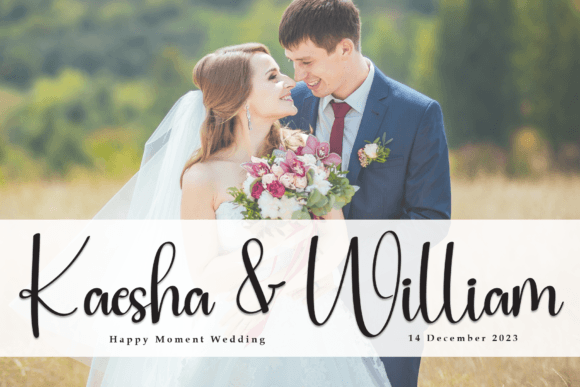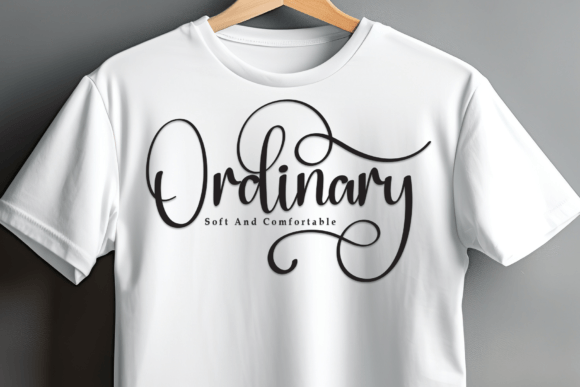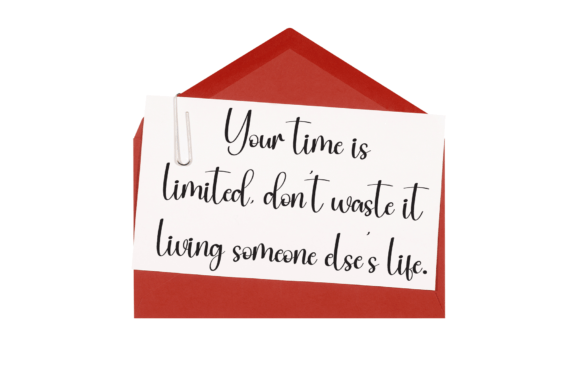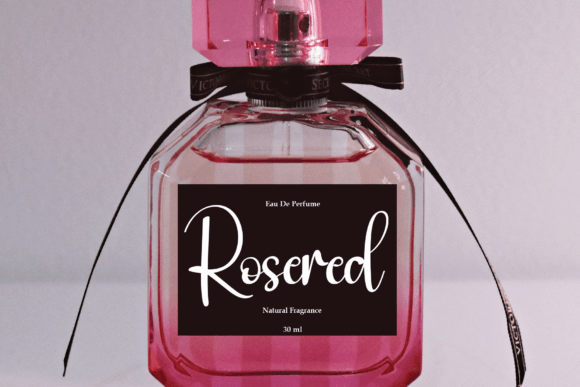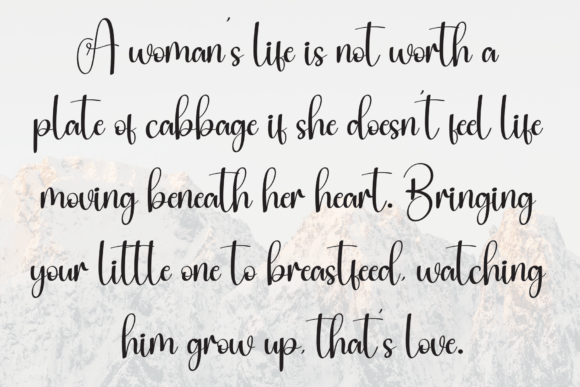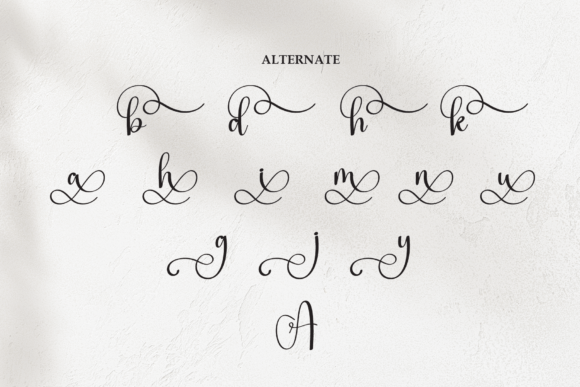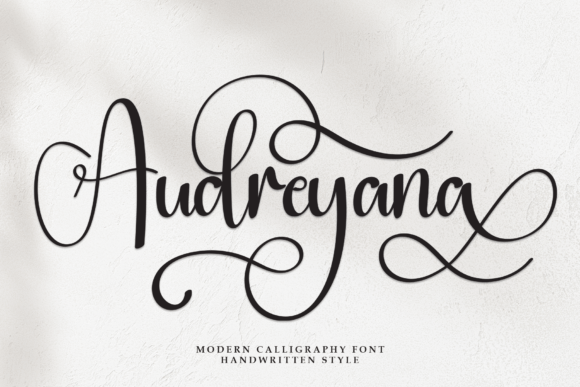
The Audreyana Font: A Sweet and Friendly Companion for Your Design Projects
I’ll never forget the time I was working on a project for a client’s wedding invitation. I had the perfect design concept, but I was struggling to find a font that captured the warmth and elegance of the occasion. That’s when I stumbled upon the Audreyana font. Its gentle curves and soft lines immediately caught my attention, and I knew I had found the perfect fit. In this article, I’ll share my experience with the Audreyana font, its features, and how to make the most of it in your design projects.
A Personal Review of Audreyana
- ✨ The Audreyana font exudes warmth and approachability, making it perfect for heartfelt messages, invitations, and personal touches.
- ✅ Its gentle curves and soft lines create a welcoming tone that’s hard to achieve with other fonts.
- 🎉 The font is highly versatile and can be used for a wide range of design projects, from wedding invitations to social media graphics.
- 👍 The font is easy to read, even at smaller sizes, making it perfect for body text or captions.
While the Audreyana font is amazing, it’s not perfect. Here are a few quirks to keep in mind:
- ⚠️ The font may not be suitable for very formal or corporate designs, as it has a distinctly friendly and approachable tone.
- 🤔 Some users may find the font a bit too sweet or feminine, so it’s essential to consider your target audience and design goals.
- Experiment with OpenType features, such as ligatures and stylistic alternates, to add visual interest to your text.
- Use the font’s OpenType features, such as ligatures and stylistic alternates, to add visual interest to your text.
The Story Behind Audreyana
The Audreyana font was designed with the intention of creating a warm and inviting typeface that would evoke feelings of comfort and approachability. The designer, inspired by classic handwritten fonts, aimed to create a modern take on traditional script fonts. The result is a font that’s both elegant and friendly, perfect for a wide range of design projects.
Q: What is the Audreyana font best used for?
A: The Audreyana font is perfect for heartfelt messages, invitations, and personal touches. It’s ideal for designs that require a warm and approachable tone.
Q: Is Audreyana a difficult font to read?
A: No, the Audreyana font is designed to be easy to read, even at smaller sizes. Its clear and gentle curves make it perfect for body text or captions.
Q: Can I use Audreyana with other fonts?
A: Yes, the Audreyana font can be paired with other fonts to create a unique and visually appealing design. Experiment with different font combinations to find the perfect match for your project.